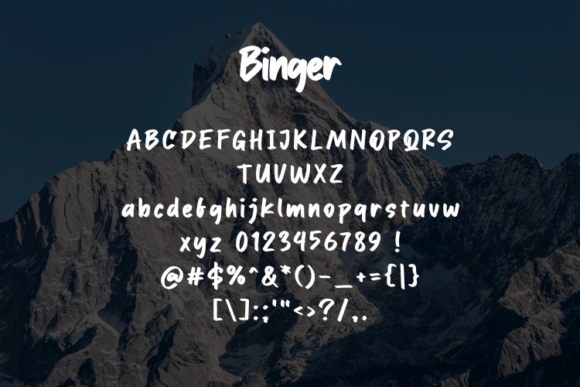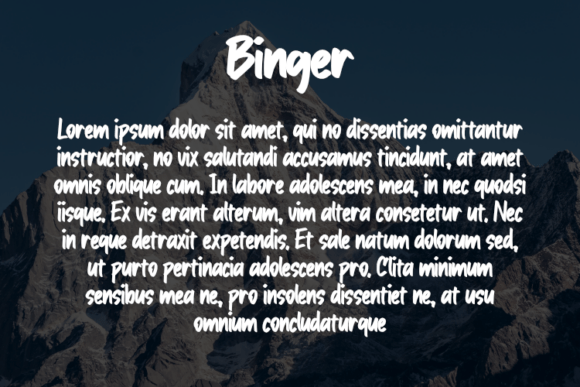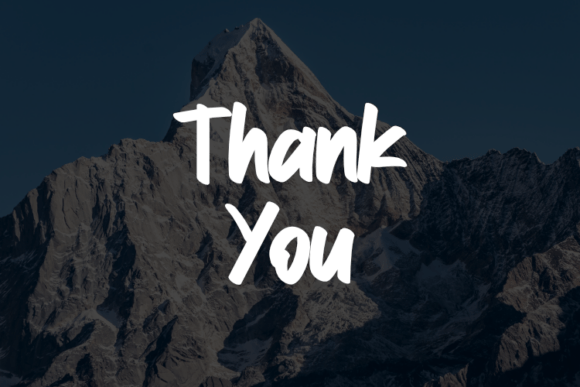
Discover the Versatility of Binger Font: Elevate Your Designs with Sophistication and Trend
In the realm of typography, few fonts manage to strike a balance between sophistication and trendiness as effortlessly as “Binger.” This quintessential font has become a go-to choice for designers and crafters looking to infuse their projects with a touch of elegance and modernity. Whether you’re working on clothing designs, t-shirts, or miscellaneous products, “Binger” offers the perfect blend of style and versatility.
Why Choose Binger Font?
So, what sets “Binger” apart from the myriad of fonts available in the market? The answer lies in its unique ability to merge sophistication with trend, making it an ideal choice for a wide range of design projects. Here are a few reasons why “Binger” should be your next font obsession:
- Effortless Sophistication: “Binger” brings an air of sophistication to any design. Its elegant strokes and contemporary look make it perfect for projects that demand a high level of professionalism and style.
- Trend-Forward: Staying on top of design trends is crucial for any designer. “Binger” is at the forefront of typography trends, ensuring your designs look current and appealing to modern audiences.
Applications of Binger Font
The versatility of “Binger” makes it suitable for a wide array of applications. Here are some popular uses for this exceptional font:
- Clothing and T-Shirt Designs: Add a professional and stylish touch to your apparel designs. “Binger” works exceptionally well for quotes, slogans, and branding on clothing and t-shirts.
- Miscellaneous Product Designs: From stationery to home decor, “Binger” can elevate the design of various products. Its clear and elegant appearance makes it perfect for product labels, posters, and more.
- Digital Content: Use “Binger” to give your digital content a polished look. Whether it’s for social media graphics, blog headers, or website content, this font ensures your text stands out.
Tips for Maximizing the Potential of Binger Font
To get the most out of “Binger,” consider the following tips:
- Experiment with Sizes: “Binger” looks great in various sizes. Experiment with different font sizes to see how it impacts the overall look of your design.
- Play with Colors: The font’s elegant design makes it versatile enough to work well with a variety of colors. Try pairing it with contrasting colors to make your text pop.
- Mix and Match: Don’t be afraid to combine “Binger” with other fonts. Its unique style allows it to complement a wide range of typography, creating visually appealing and dynamic designs.
“Binger” – the quintessential font that effortlessly merges sophistication with trend – is an indispensable tool for designers and crafters aiming to elevate their projects. Its universal compatibility, elegant appearance, and ease of use make it a superior choice for a multitude of design applications. By incorporating “Binger” into your design toolkit, you’re not just adding a font; you’re embracing a new level of creativity and professionalism. So, why wait? Discover the potential of “Binger” today and take your designs to new heights.